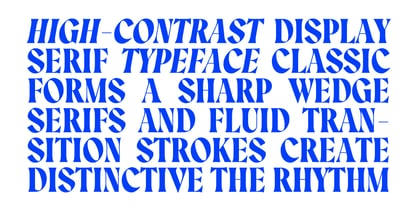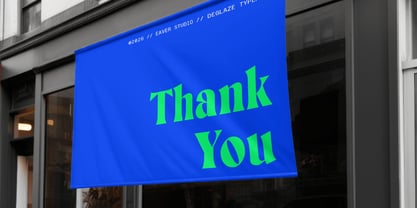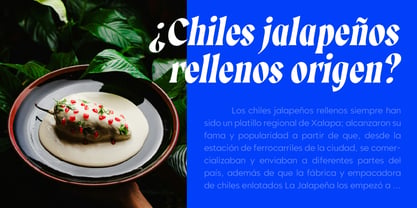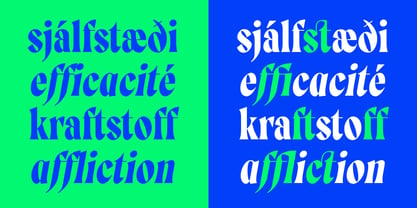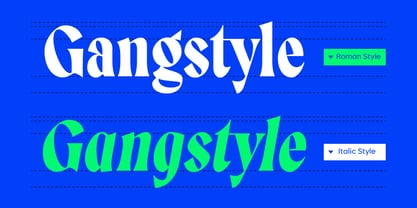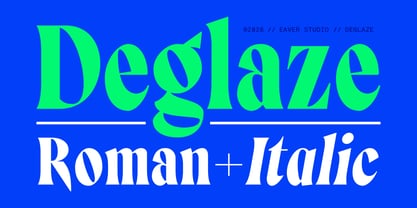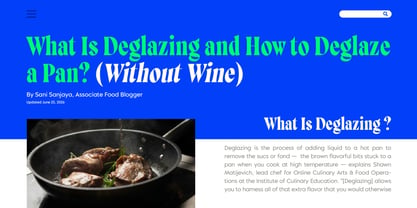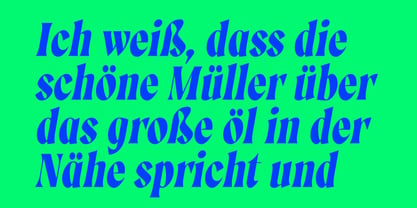
Deglaze
by Eaver Studio
In culinary terminology, deglazing is the process of releasing the concentrated flavors left behind in a pan after cooking. Inspired by this idea, Deglaze explores the typographic equivalent of revealing hidden richness beneath the surface. The design draws from historical serif traditions, extracting and refining their essential forms into a new visual expression. Just as deglazing transforms residue into depth and complexity, Deglaze transforms typographic heritage into a contemporary display typeface filled with contrast, character, and flavor.